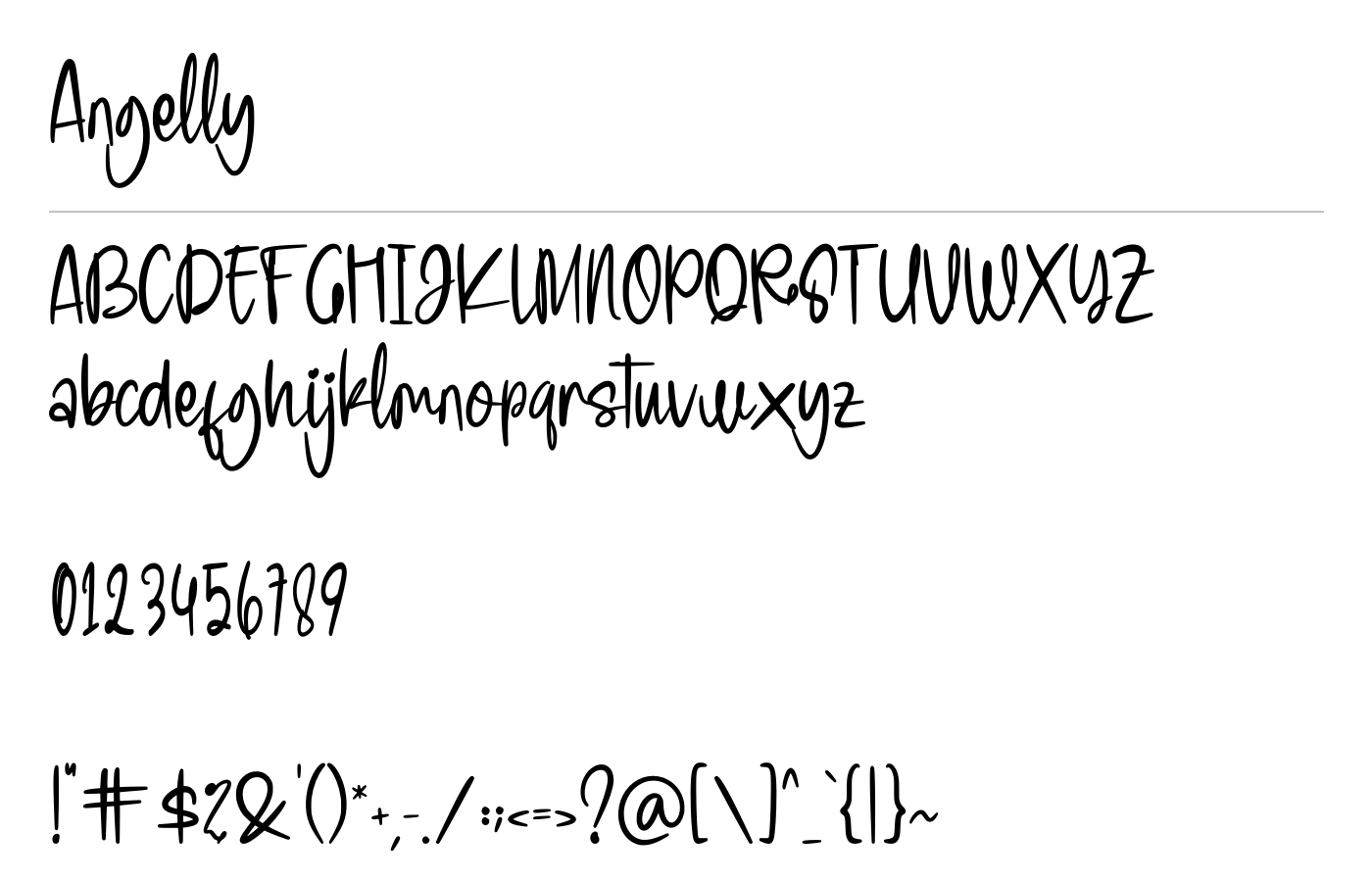
Angelly is a playful, hand-drawn script font with a lively and casual feel. Its tall, narrow letterforms and varying stroke widths create an energetic and friendly vibe, making it ideal for creative, informal branding, social media graphics, and children's products. This font works best in headlines or display settings where a personal, approachable touch is desired.
Angelly Font